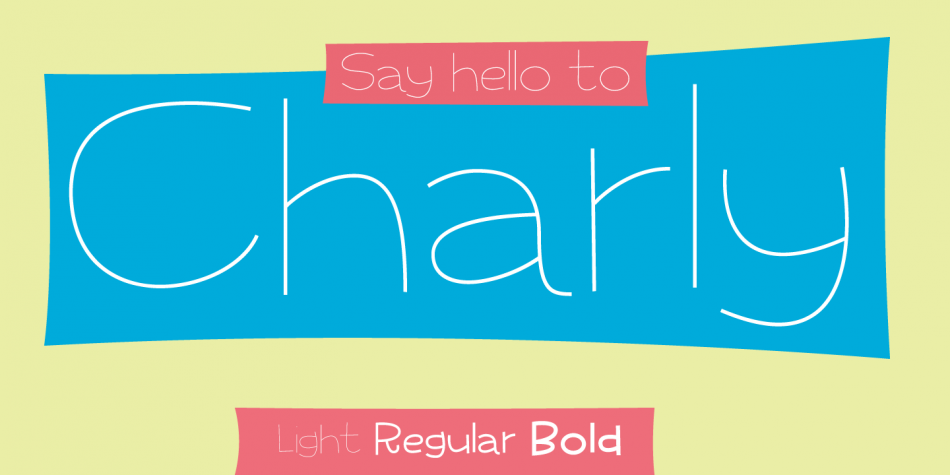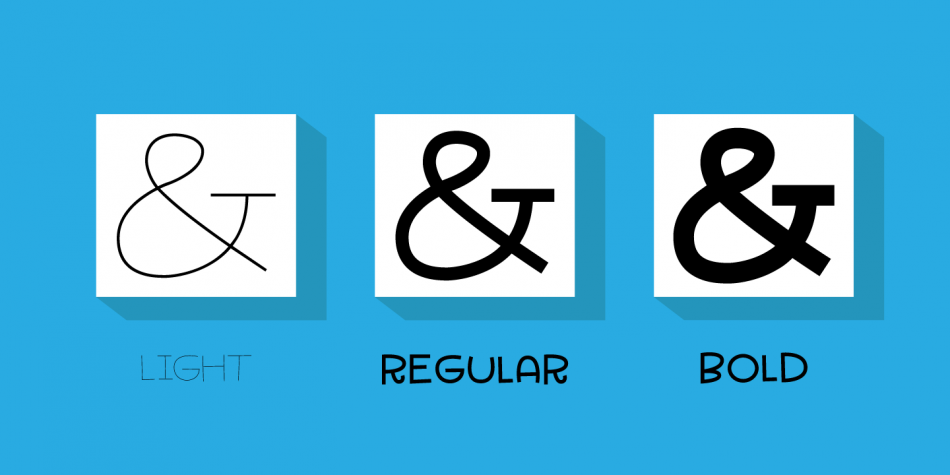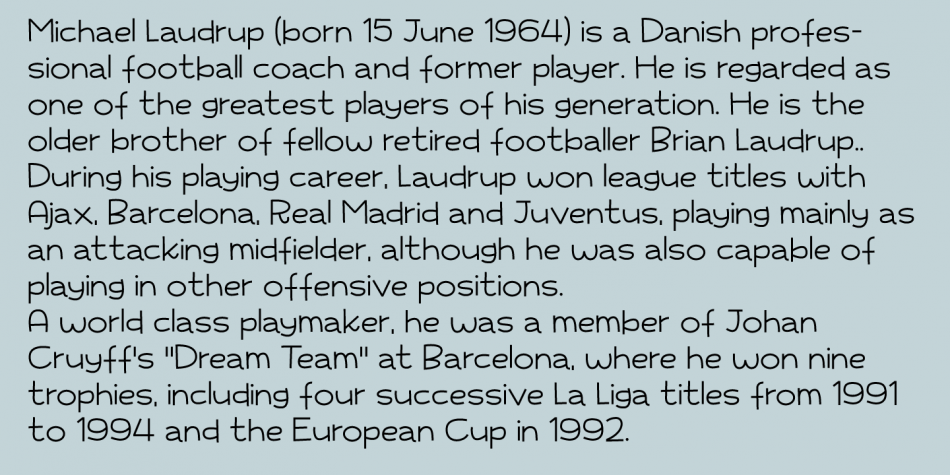
| Designed by Jakob Fischer, Charly is a hand drawn font family. This typeface has six styles and was published by Pizzadude.dk. |
You may never really know who Charly was, because all of a sudden he was there!